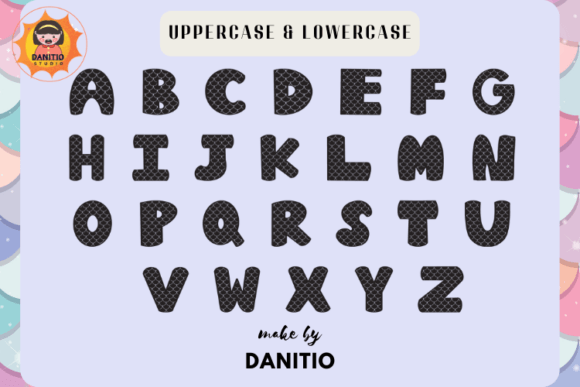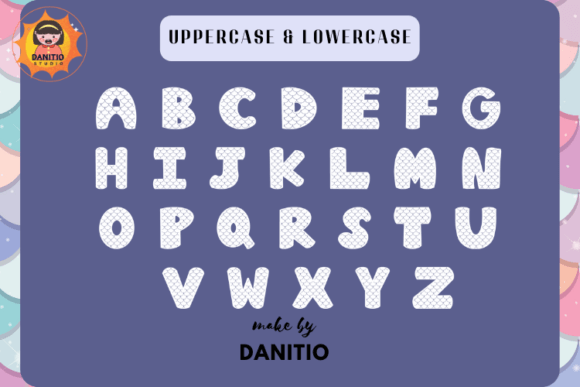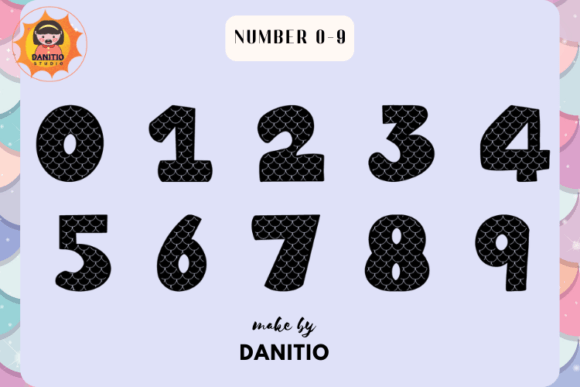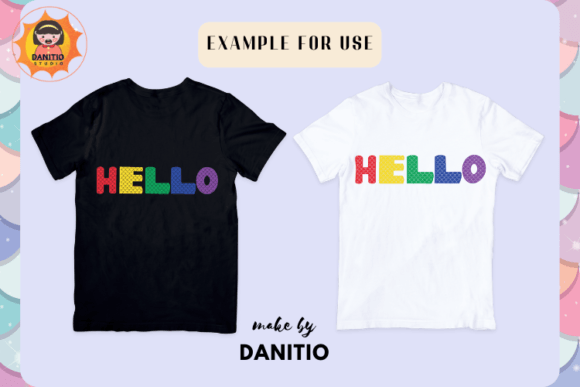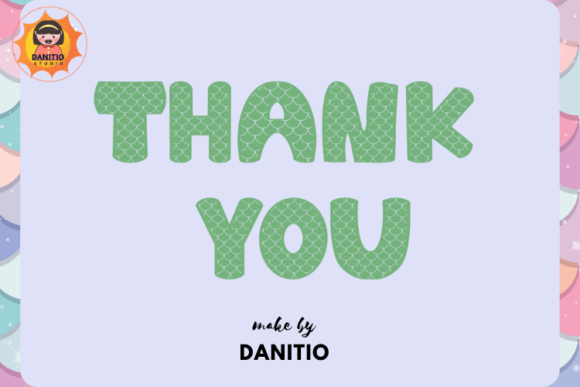
Discover the Enchanting Happy Mermaid Font: Add a Touch of Whimsy to Your Designs
Are you looking for a font that can add a playful and charming touch to your creative projects? Look no further than the Happy Mermaid Font! This beautiful decorative font features a lovely mermaid fin pattern that is sure to make your designs stand out. With its whimsical design and hand-drawn mermaid motifs, this font is perfect for designers and crafters who want to add a touch of magic to their work.
The Unique Features of Happy Mermaid Font
The Happy Mermaid Font is a one-of-a-kind decorative font that boasts a range of unique features. Each letter is carefully decorated with a hand-drawn mermaid motif, making it a truly eye-catching addition to any project. The font’s playful and whimsical design is sure to bring a smile to your face, and its charm is undeniable. Whether you’re working on invitations, posters, or any other creative project, this font is sure to make it shine.
Perfect for a Range of Creative Projects
The Happy Mermaid Font is incredibly versatile and can be used for a wide range of creative projects. Whether you’re a designer, crafter, or simply someone who loves to get creative, this font is sure to inspire you. Here are just a few ideas for how you can use the Happy Mermaid Font:
- Invitations: Add a touch of whimsy to your party invitations, wedding invites, or baby shower announcements.
- Posters: Create eye-catching posters for your business, event, or social media campaign.
- Crafting: Use the Happy Mermaid Font to add a personal touch to your handmade crafts, such as cards, gift tags, or scrapbooking pages.
- Digital Art: Incorporate the font into your digital art, such as illustrations, graphics, or animations.
Why Choose the Happy Mermaid Font?
With so many fonts to choose from, why should you choose the Happy Mermaid Font? Here are just a few reasons why this font stands out:
- Unique Design: The Happy Mermaid Font features a truly unique design that is sure to make your projects stand out.
- High-Quality: The font is carefully crafted with high-quality graphics, ensuring that it looks great in any project.
- Playful and Whimsical: The font’s playful and whimsical design is sure to add a touch of magic to your projects.
Tips for Using the Happy Mermaid Font
Here are a few tips for getting the most out of the Happy Mermaid Font:
- Experiment with Colors: Try pairing the font with different colors and textures to add depth and interest to your projects.
- Mix and Match: Combine the Happy Mermaid Font with other fonts and graphics to create a unique and eye-catching design.
- Pay Attention to Scale: Make sure to adjust the font size to fit your project’s needs, and don’t be afraid to get creative with font sizes and styles.
The Happy Mermaid Font is a beautiful and unique decorative font that is sure to add a touch of whimsy and charm to your creative projects. With its hand-drawn mermaid motifs and playful design, this font is perfect for designers and crafters who want to make their work stand out. Whether you’re working on invitations, posters, or any other creative project, the Happy Mermaid Font is sure to bring a smile to your face and inspire your creativity.